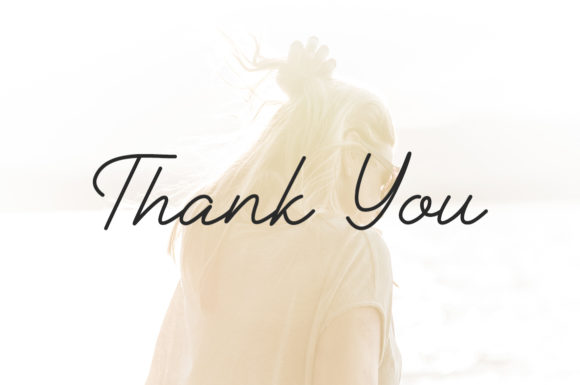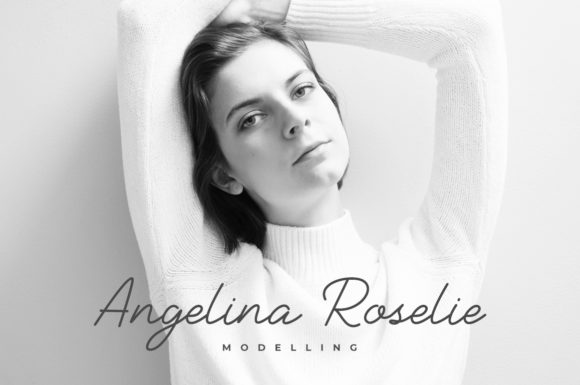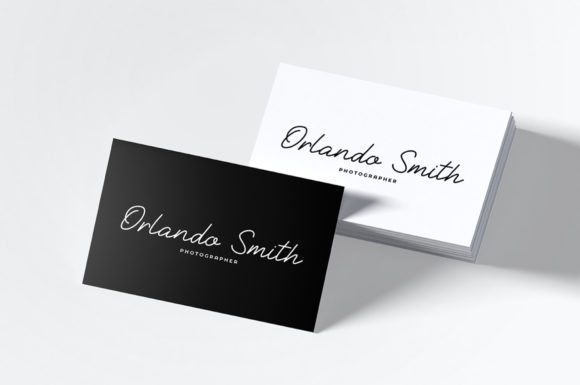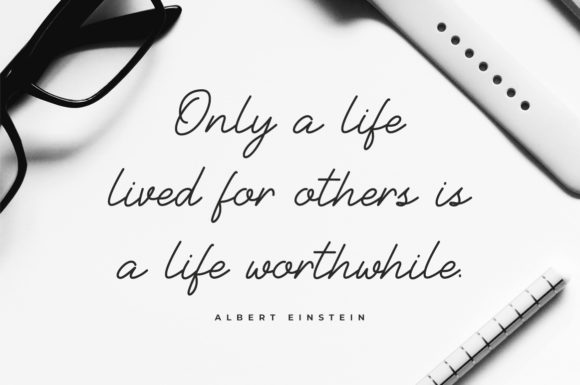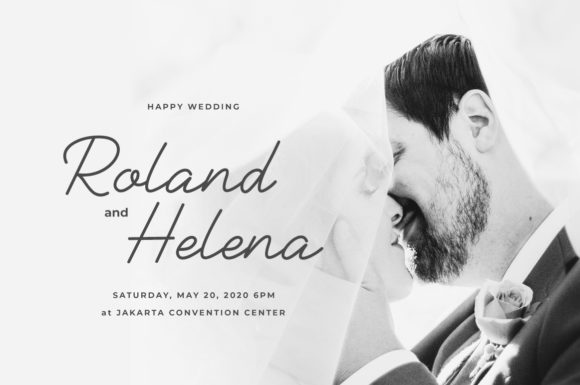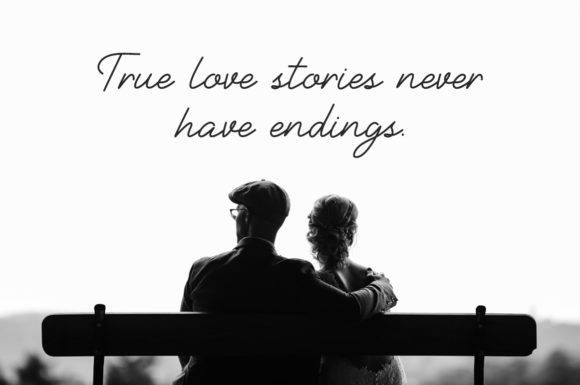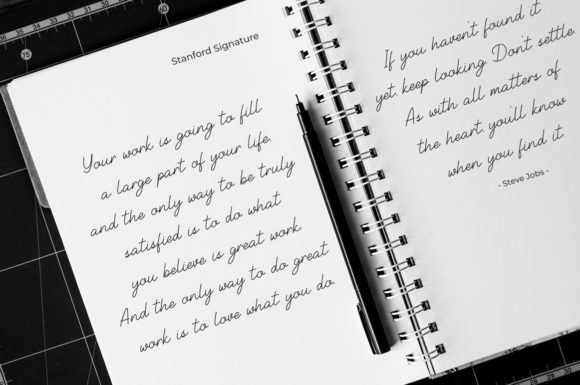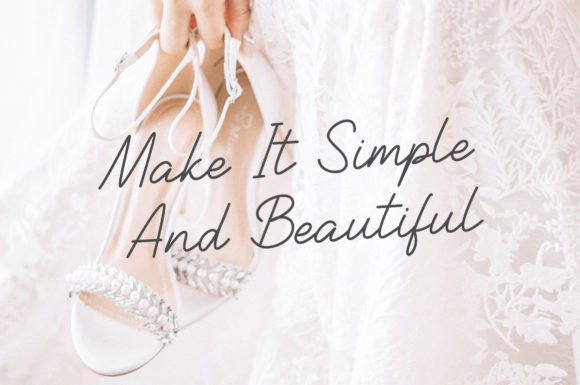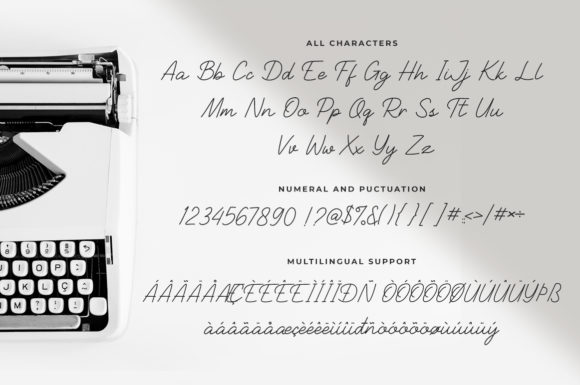
Stanford Font
About Stanford Font
Stanford is a modern and fresh script font. It features a natural and elegant feel that make it perfect for crafting projects that need a handwriting style.